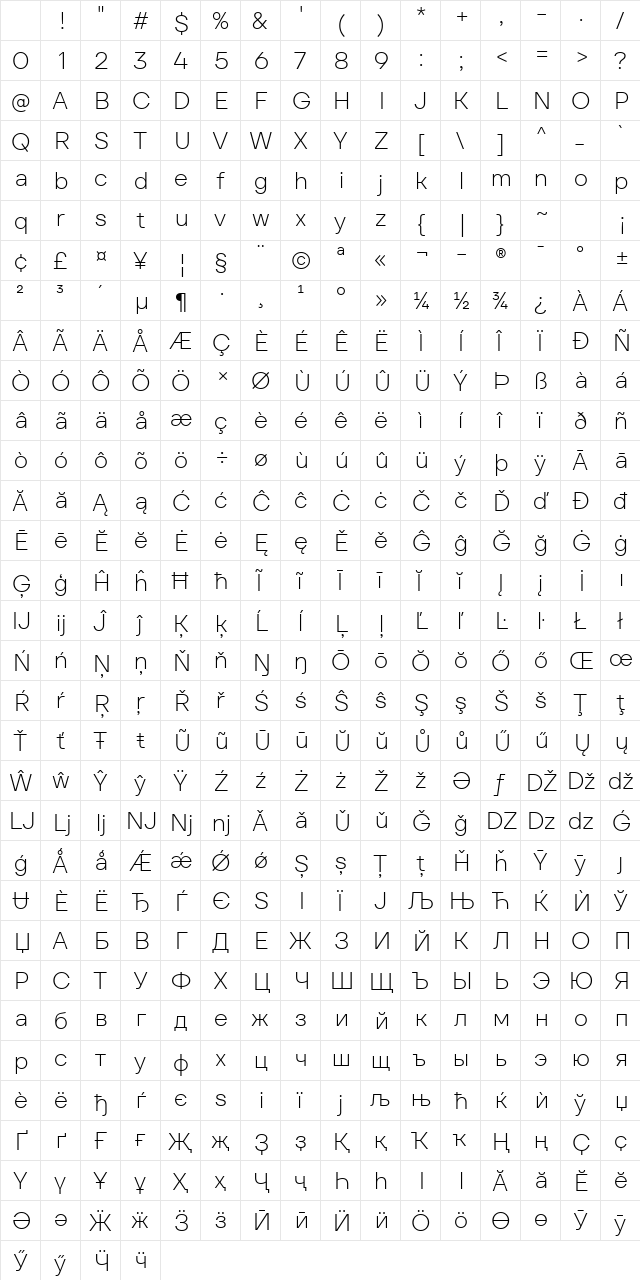
Complete TT Firs Text Trial Light glyph index. Displaying only characters natively supported by TT Firs Text Trial Light font.
TT Firs Text Trial is a composed and adaptable typeface that performs quietly and consistently across a wide range of design contexts. Its slender proportions lend an understated elegance to any composition.